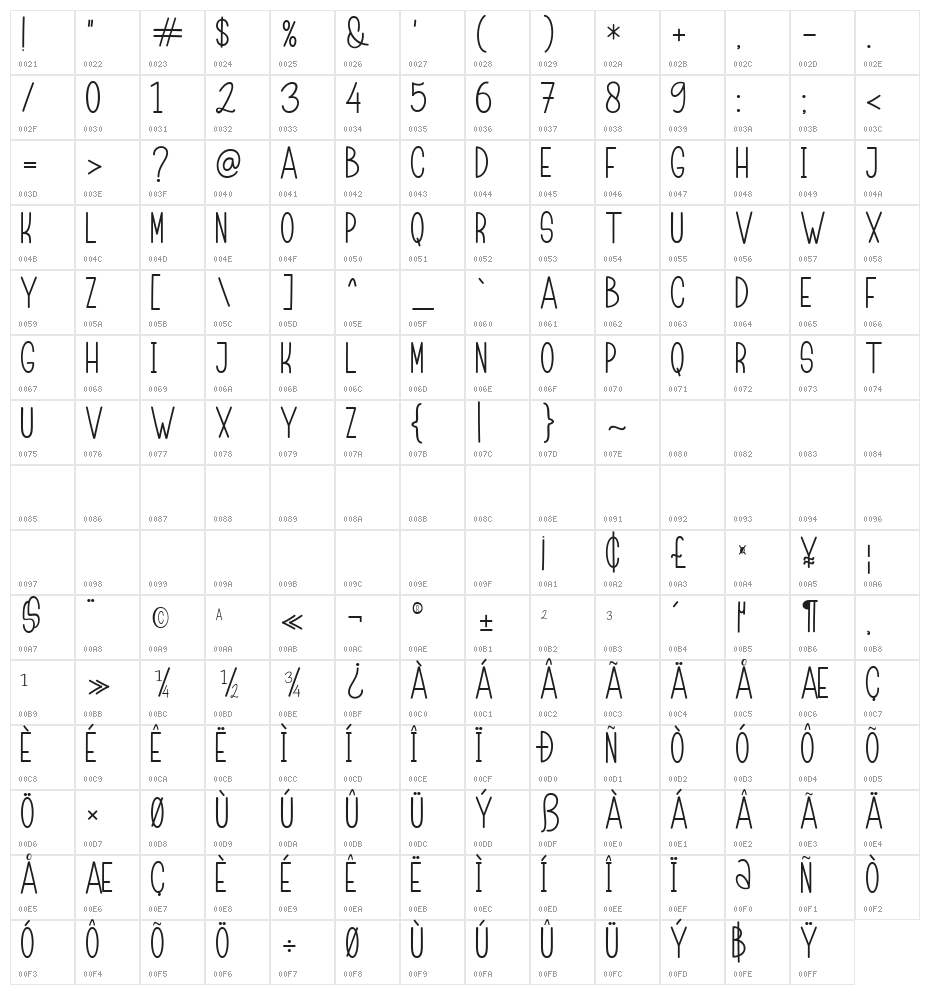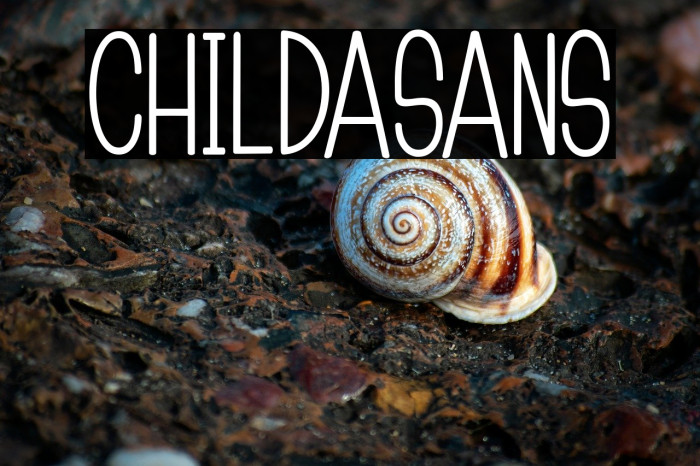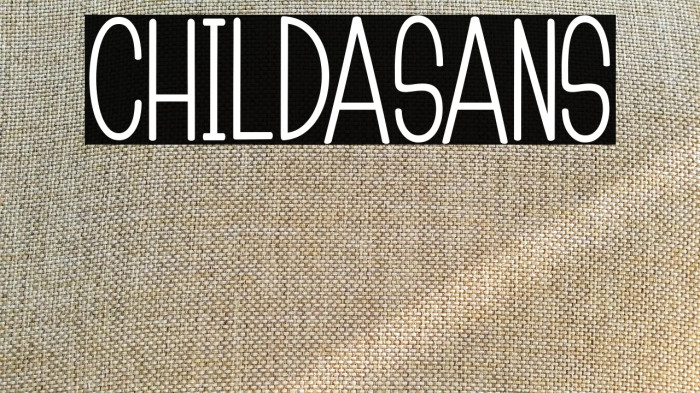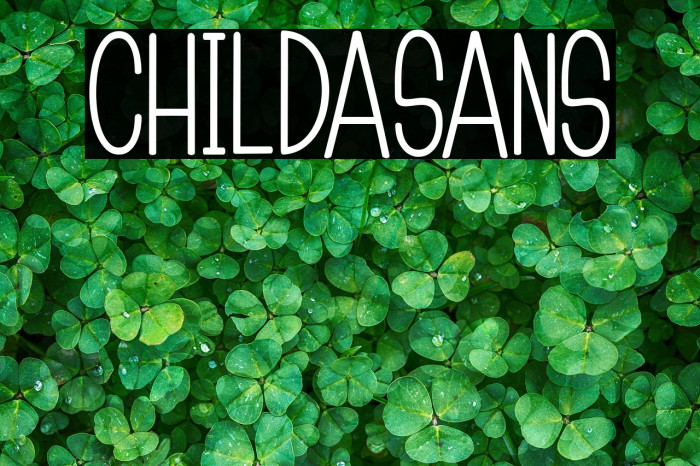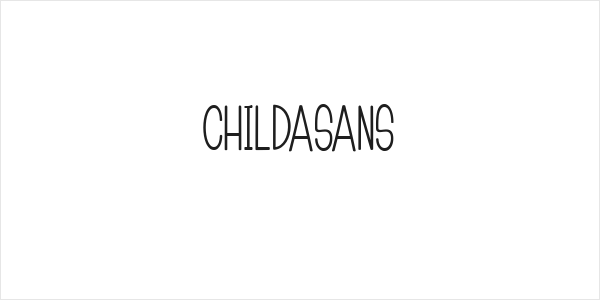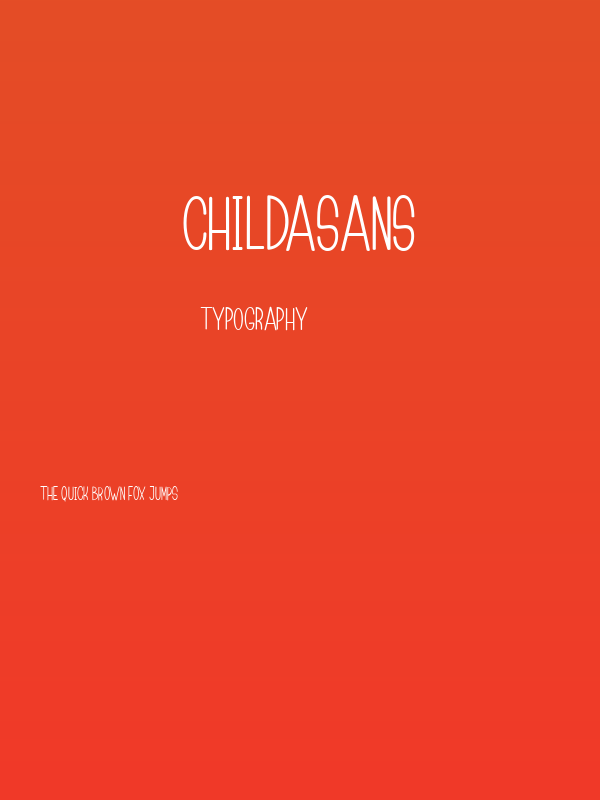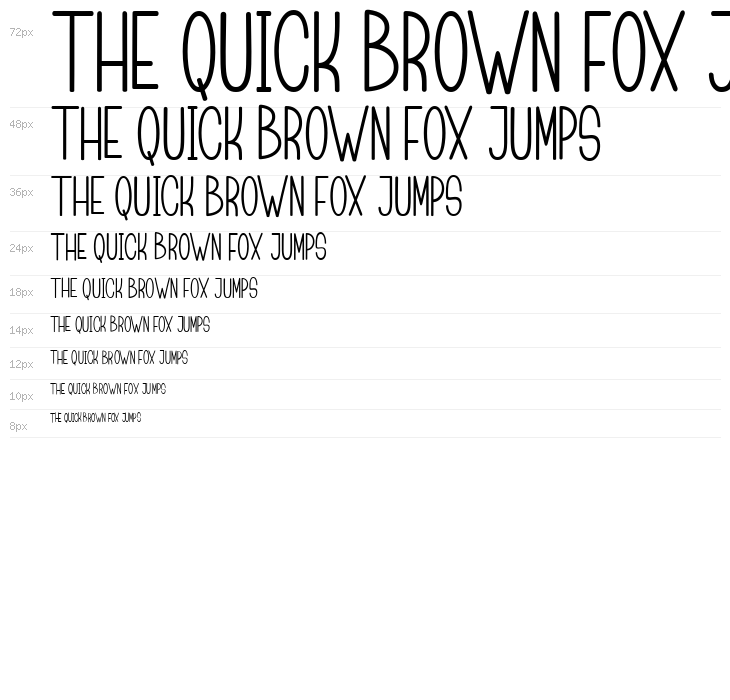
ChildaSans Font
ChildaSans Description
This font features a playful and whimsical design with tall, narrow characters that convey a sense of lightheartedness. The letters are uniformly thin, with a consistent stroke width that gives the font a clean and modern appearance. The rounded edges and slightly irregular shapes add a touch of charm and friendliness, making it suitable for informal and creative projects. The numerals and special characters maintain the same playful style, ensuring a cohesive look across all text elements.
| Proposed Projects | Ideal for children's books, playful branding, casual invitations, and creative posters. |